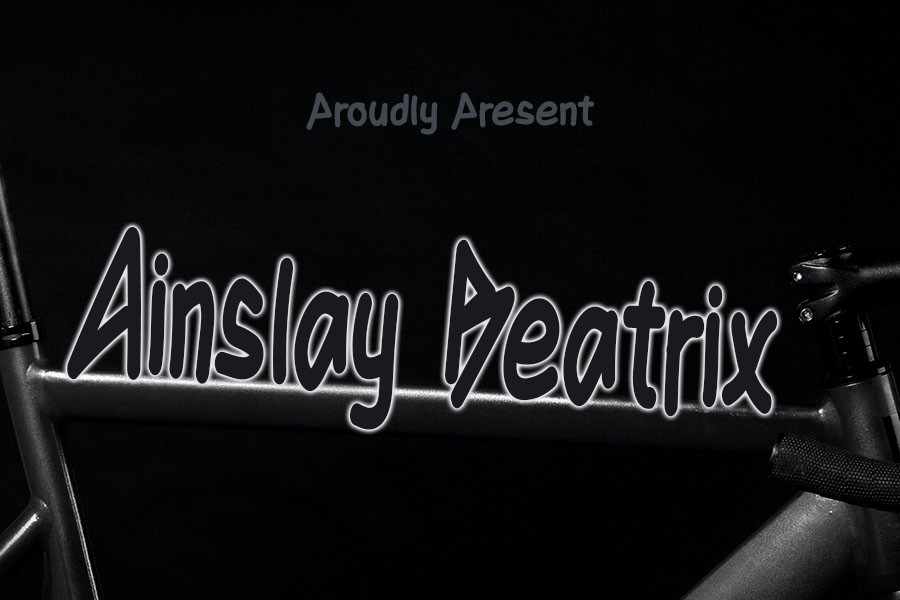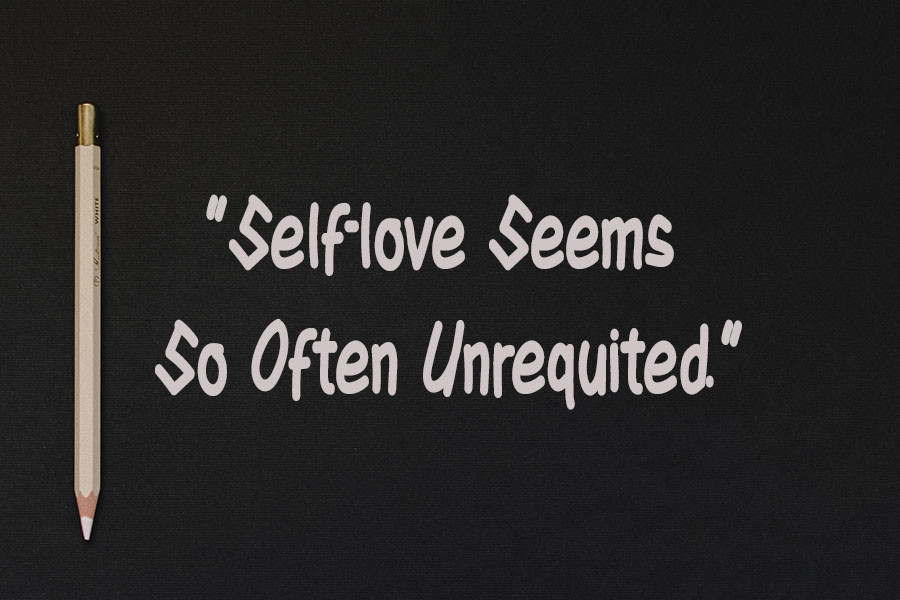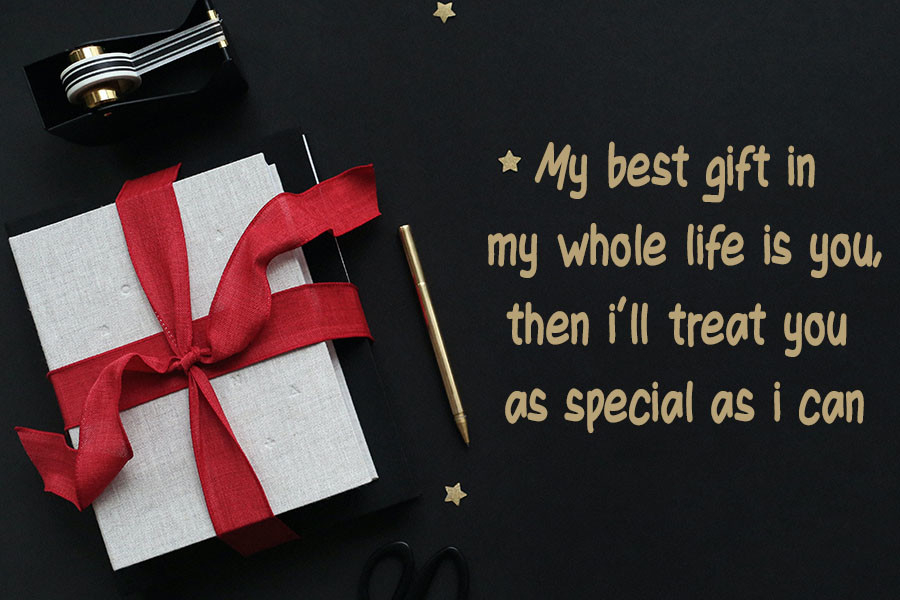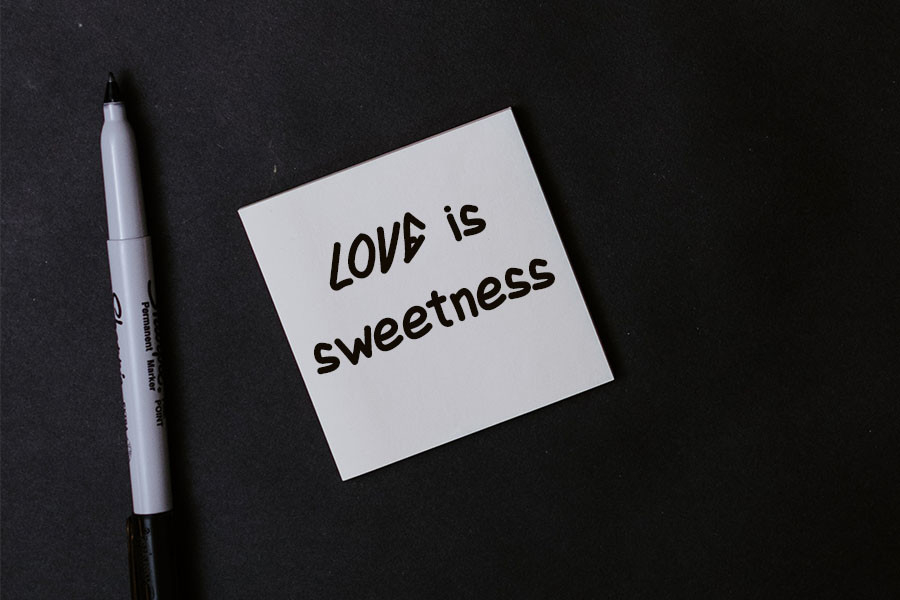
Ainslay Beatrix Font
About Ainslay Beatrix Font
Ainslay Beatrix is an incredibly unique blackletter font. Masterfully designed to become a true favorite, this font has the potential to bring each of your creative ideas to the highest level!